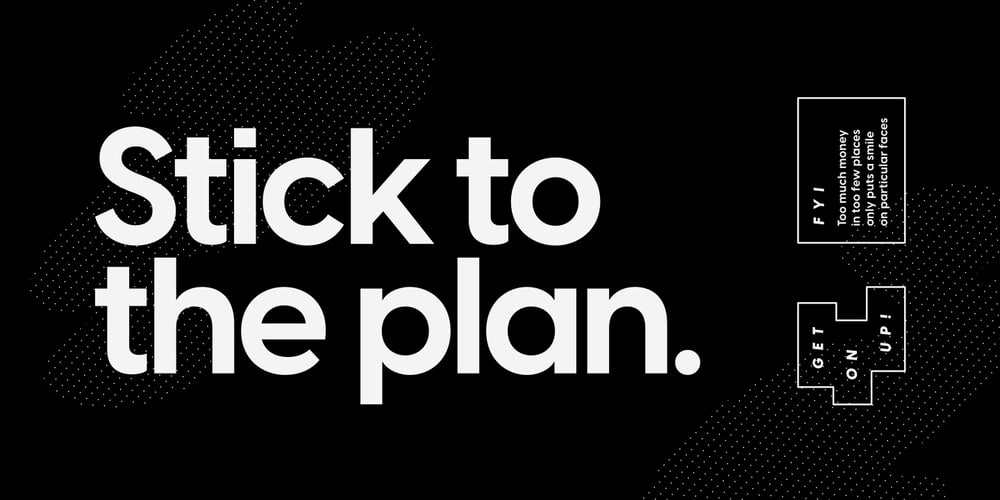
Visby CF
Visby CF font
Visby CF Font Family was designed by Connary Fagen and published by Connary Fagen. Visby CF contains 16 styles and family package options. Friendly in lowercase; sophisticated in capitals. Visby® CF is a geometric font family inspired by the stark beauty of the Arctic. Straight lines and sharp corners mesh with subtle humanist influences, giving Visby a blend of precision and warmth. Includes Latin and Cyrillic scripts.Visby® CF pairs well with contrasting softer typefaces, particularly text-friendly serifs like Artifex CF and Addington CF.All typefaces from Connary Fagen include free updates, including new features, and free technical support.